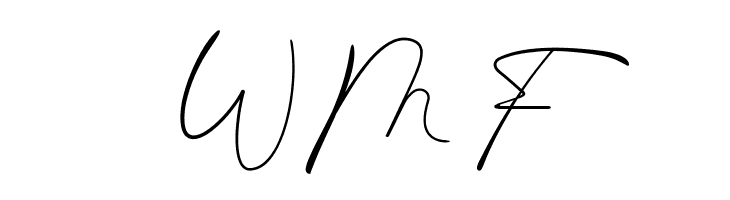
Buda Font
A modern, elegant font with clean lines and slight stroke contrast.
Festival Budaya XXXI Font
A bold, decorative font with vintage flair and intricate detailing.
Buda Light Font
A clean, elegant font with modern aesthetics and subtle stroke contrast.
Budaphest Regular Font
A lively handwritten font with fluid, cursive strokes and playful loops.
Budapest Font
A flowing cursive font with elegant curves and loops.
Budaya Font
A bold, modern font with Gothic influences and high contrast strokes.
BudAngular Font
An angular, edgy font with a hand-drawn, dynamic style.
Mf Houston Paris Budapest Font
A bold, dynamic font with sharp angles and a slight slant, exuding energy and elegance.
BUDAK TADIKA Font
A playful, handwritten-style font with bold, rounded characters.
Budapest Regular Font
A geometric, three-dimensional font with a faceted, crystal-like design.
Budapest Market HD Font
A bold, textured, and playful hand-drawn font with a unique and informal style.
Budapest Swashes Font
Decorative swashes and flourishes with intricate, elegant lines.
Budapest Market Clean Font
A bold, playful script font with thick, flowing strokes and rounded edges.
Budayut-Regular Font
A playful, handwritten font with fluid strokes and a casual vibe.
Budayut-Regular Font
A playful, handwritten font with fluid and organic strokes.
Chic Budapest Font
A sophisticated, cursive font with fluid, interconnected letters.
Budapest Girl Font
A graceful script font with flowing cursive letters and intricate swashes.